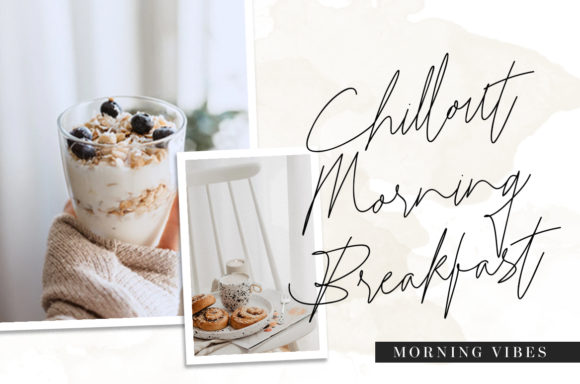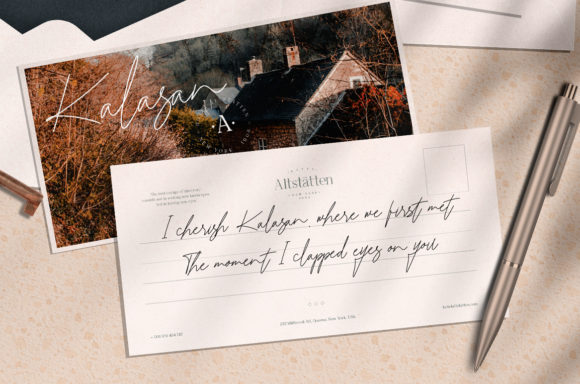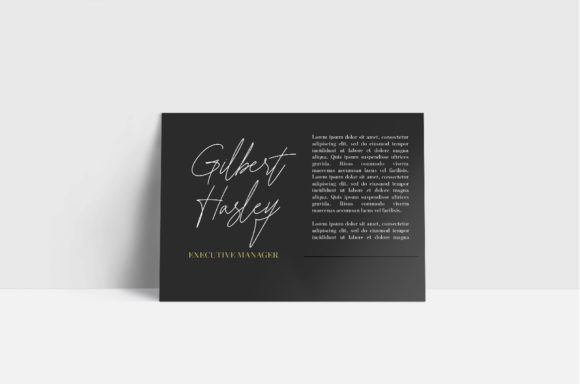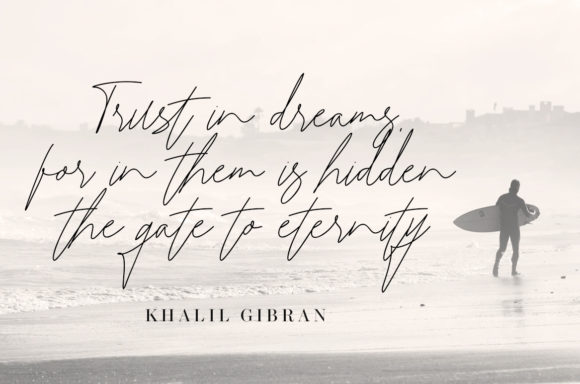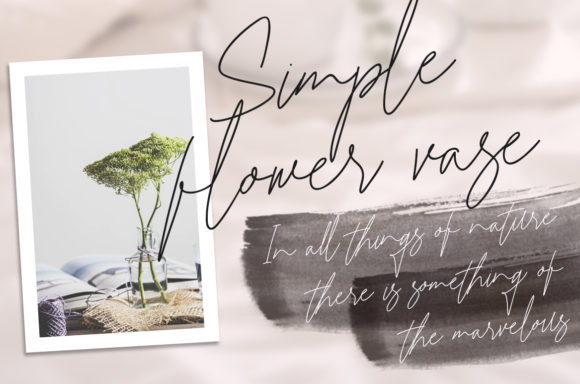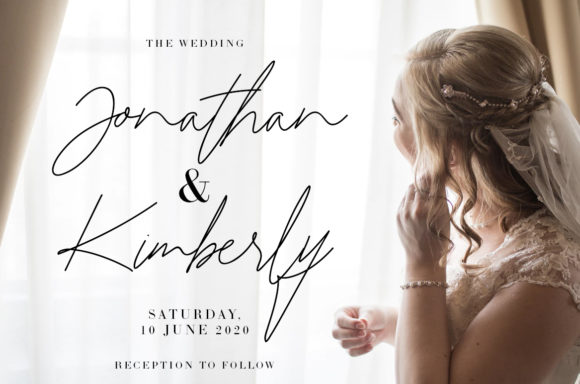
Introduction to Katrina Signature Font
Have you ever found yourself in the middle of a creative project, pouring your heart and soul into a design, only to realize that it’s missing that special something? For many designers, this is the moment when the perfect font can make all the difference. And that’s exactly what the Katrina Signature Font is designed to do – add a touch of elegance and personality to your work.
Whether you’re working on a logo, a quote, or a wedding invitation, the Katrina Signature Font is the perfect choice. Its natural, handwritten feel is both high quality and versatile, making it an invaluable design resource for any creative project. And the best part? It’s available for free download, complete with a transparent background, so you can use it in a variety of settings.
Key Features of Katrina Signature Font
- Features a unique and elegant script style, perfect for adding a personal touch to designs
- Download includes a comprehensive character set, including uppercase and lowercase letters, numbers, and punctuation marks
Honest Review: Katrina Signature Font
I recently had the chance to work with the Katrina Signature Font on a creative project, and I must say it’s been a game-changer. This font is perfect for anyone looking to add a touch of elegance to their designs.
- What works well: ✨ The font’s high-quality design is evident in its smooth lines and precise letterforms. The transparent background makes it easy to layer with other design elements.
- What works well: ✨ The font is incredibly versatile and can be used for a wide range of creative projects, from branding to print materials.
While the Katrina Signature Font is a great addition to any design arsenal, there are a few limitations to be aware of:
- Limitations: ⚠️ The font may not be suitable for certain types of text, such as small body copy, due to its elegant and ornate design.
- Limitations: ⚠️ Some users may find the font’s transparent background to be a bit tricky to work with, especially in certain design software.
Overall, I’m thoroughly impressed with the Katrina Signature Font. Its high quality, versatility, and free download make it an excellent design resource for anyone looking to elevate their creative projects.
Katrina Signature Font
The Katrina Signature Font is a versatile design resource that can be used in a variety of creative projects, including logos, icons, text overlays, and presentations. Its transparent background and high quality make it a valuable asset for designers and artists looking to add a professional touch to their work.
Tips for Getting the Most Out of Katrina Signature Font
To get the most out of the Katrina Signature Font, experiment with different font sizes, colors, and layering techniques. You can also combine the font with other design elements, such as images and shapes, to create unique and eye-catching designs. With a little creativity, the Katrina Signature Font can be a powerful tool for any design project.